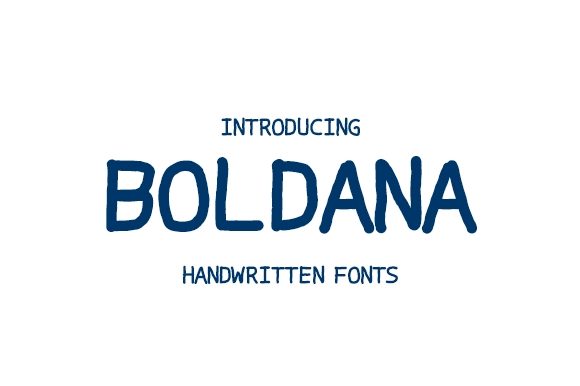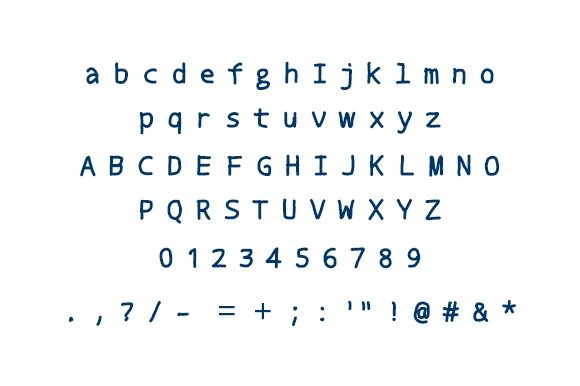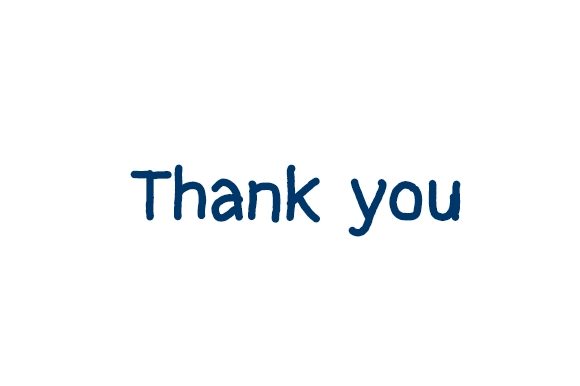
Boldana Font
About Boldana Font
Boldana embodies fun, quirkiness and authenticity. This enchanting handwritten font will turn any creative idea into a true standout.